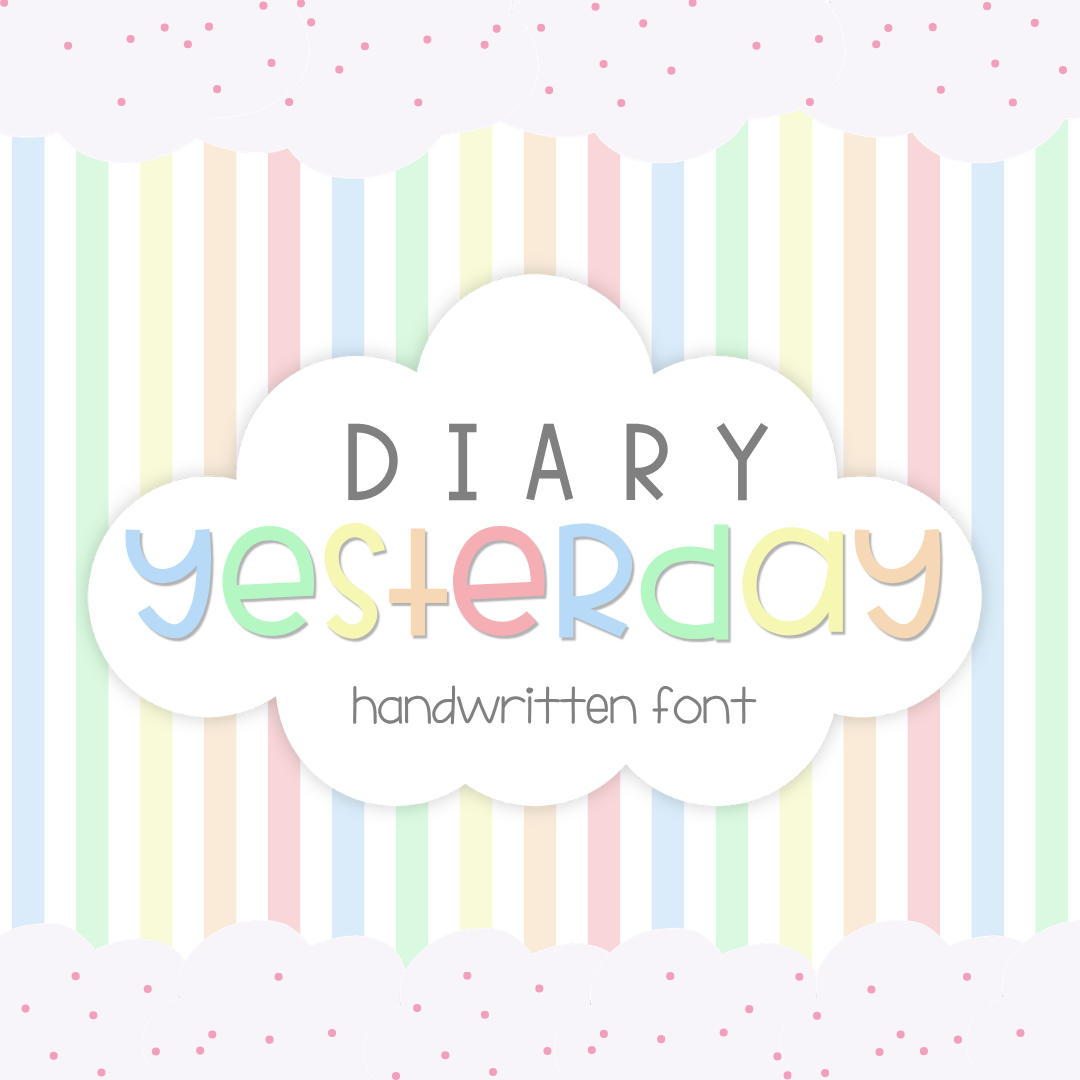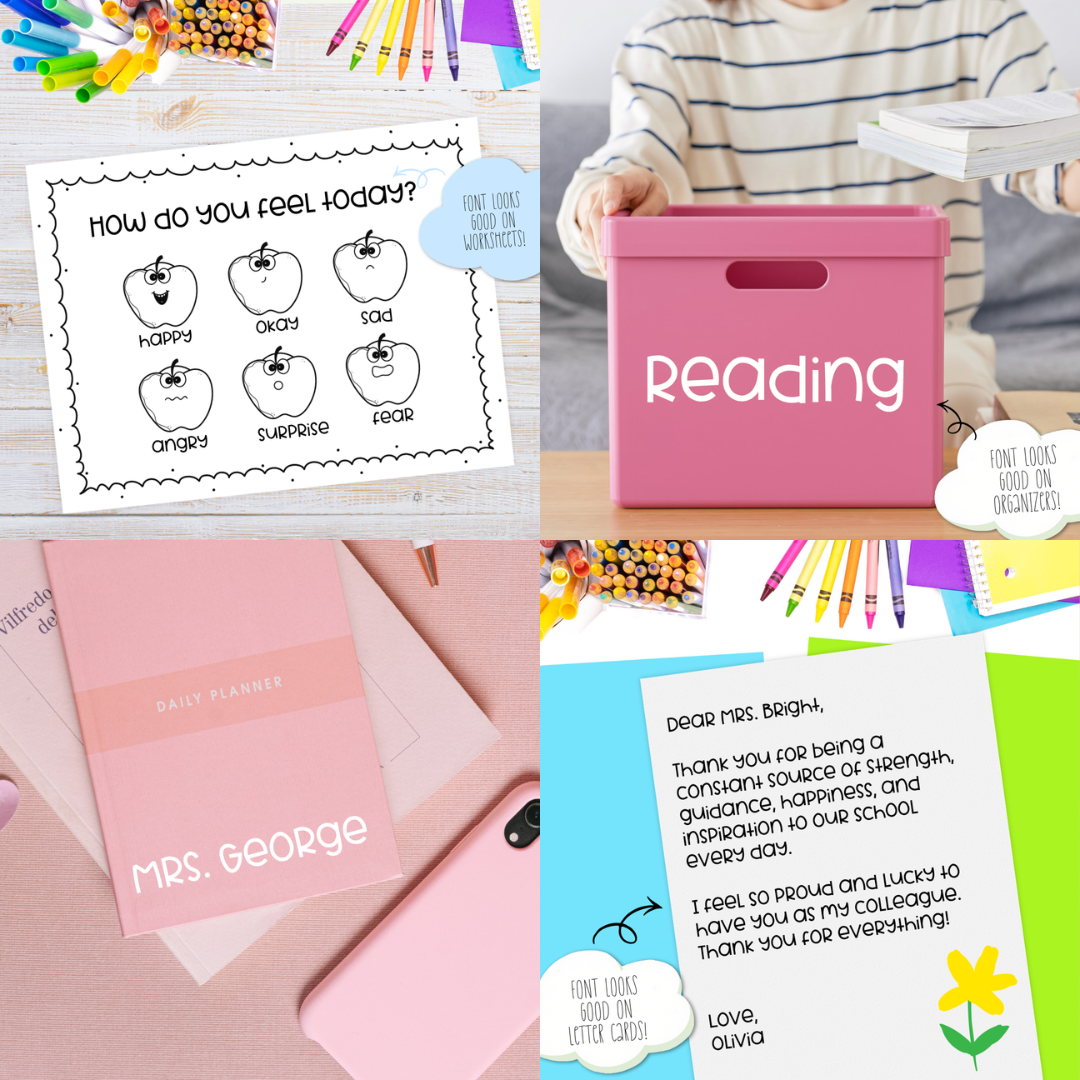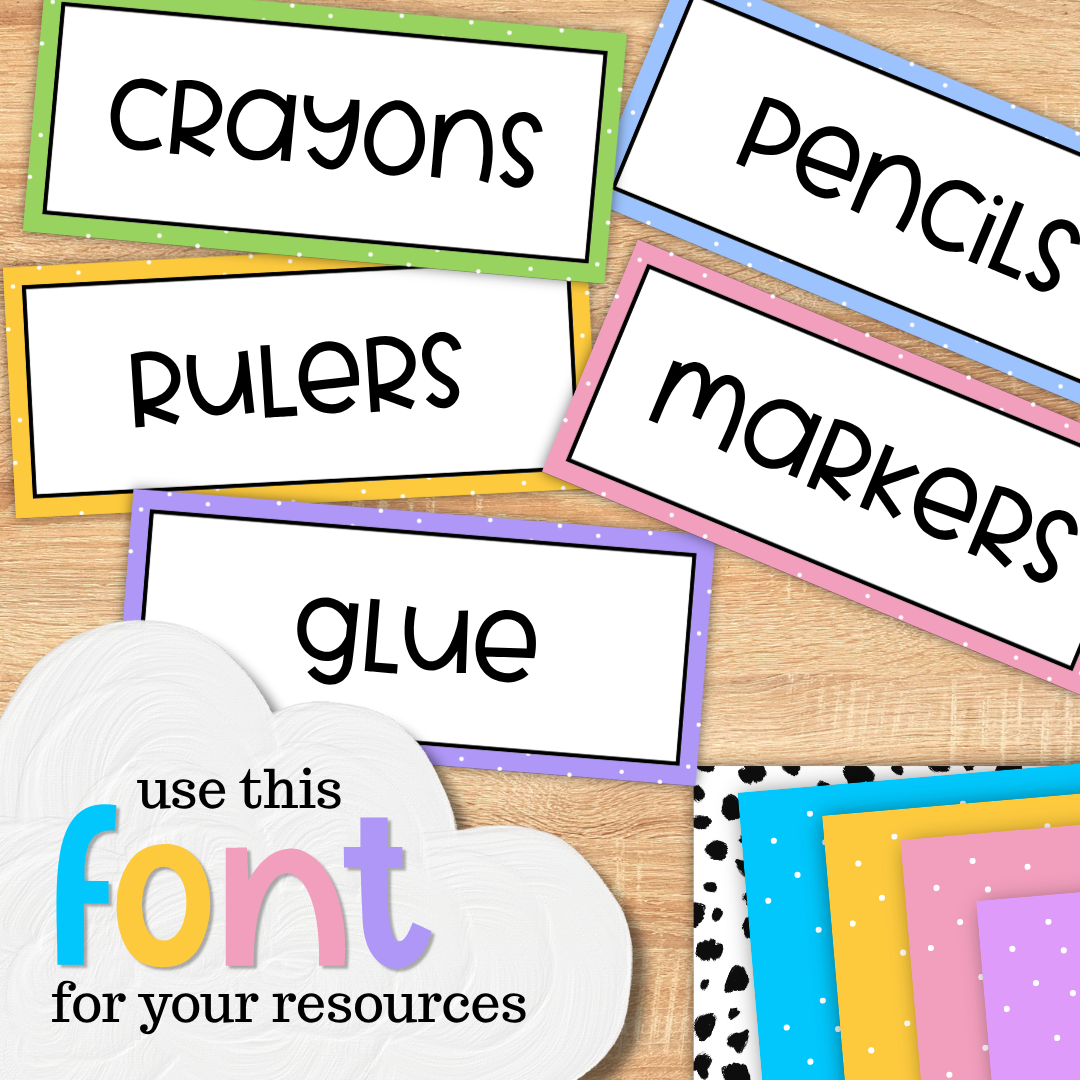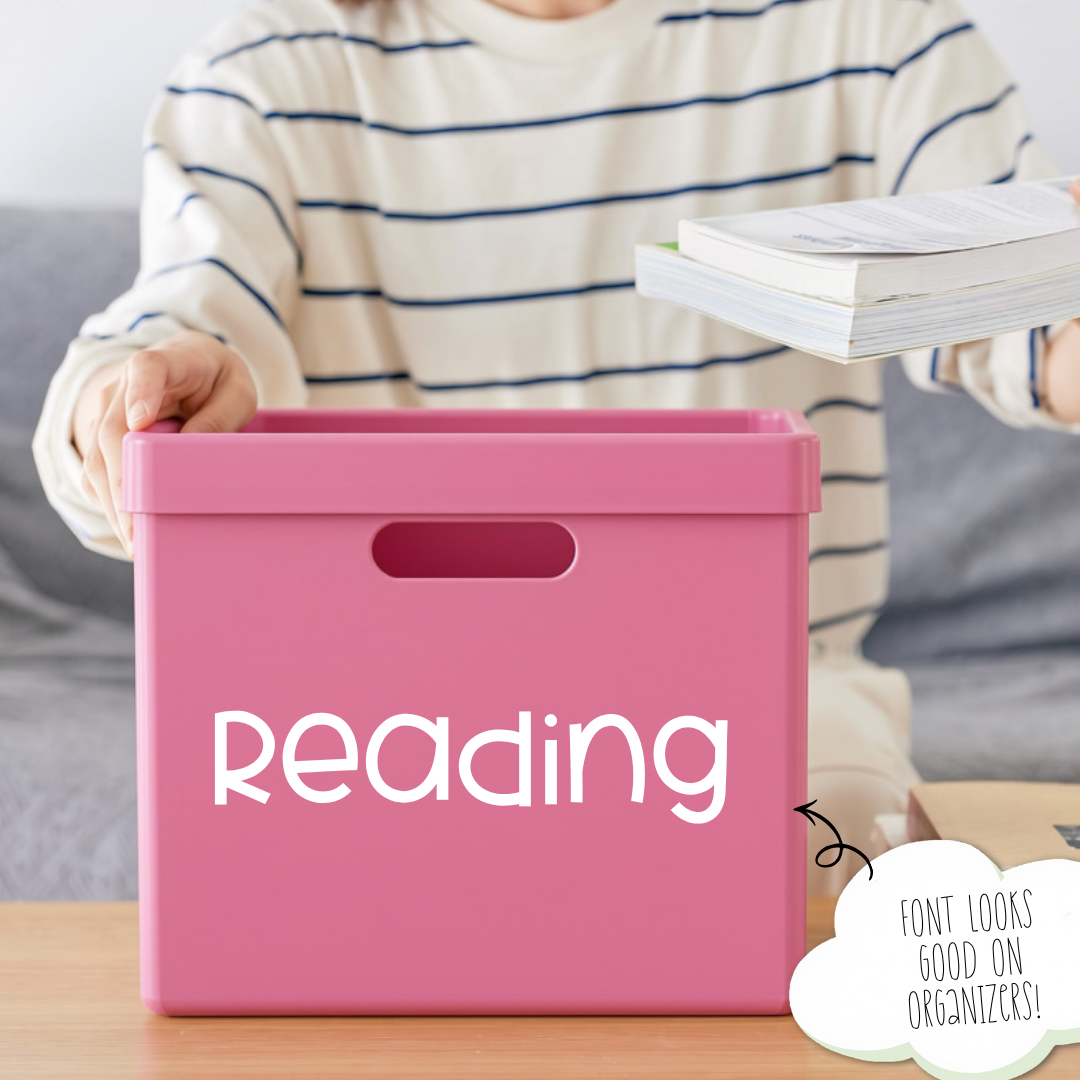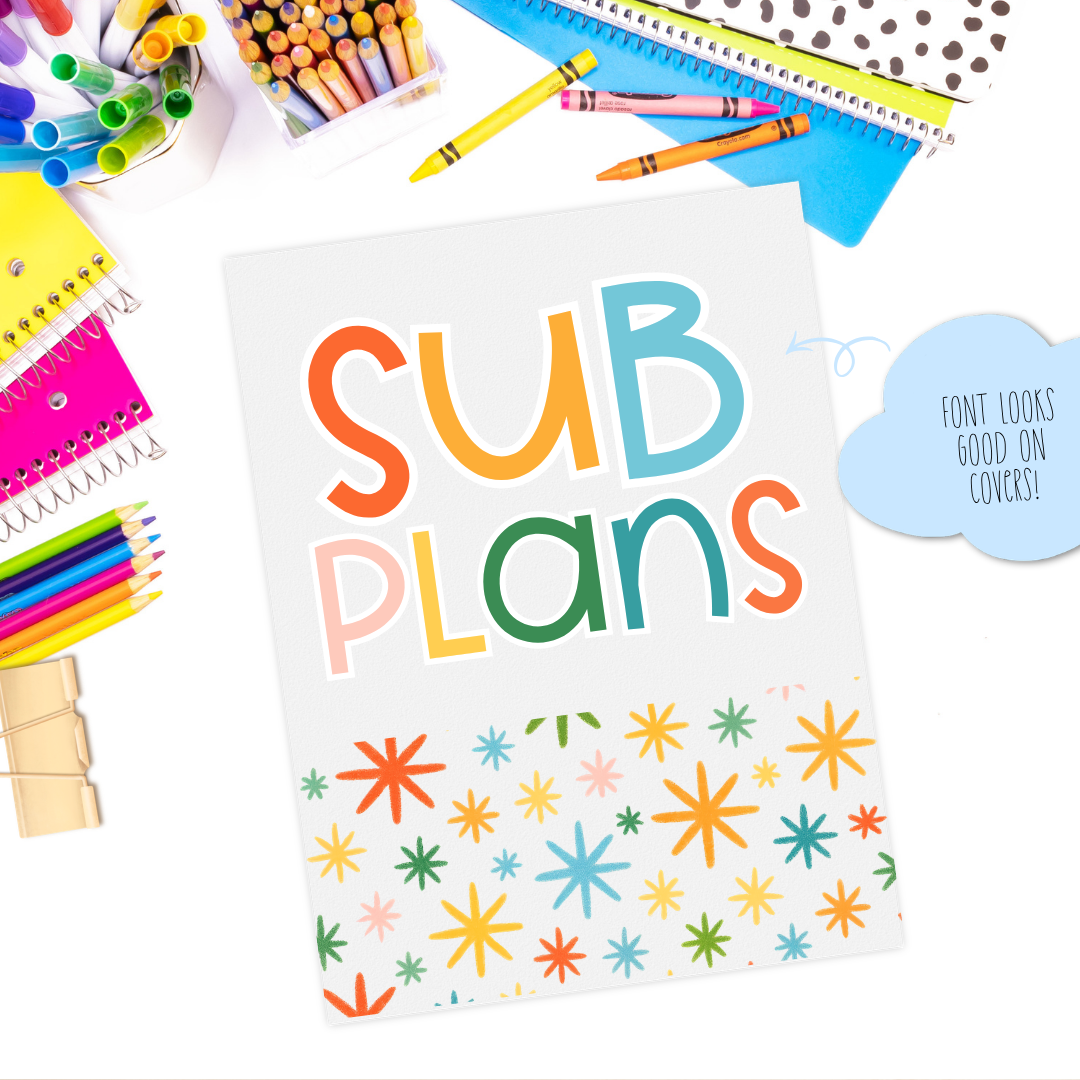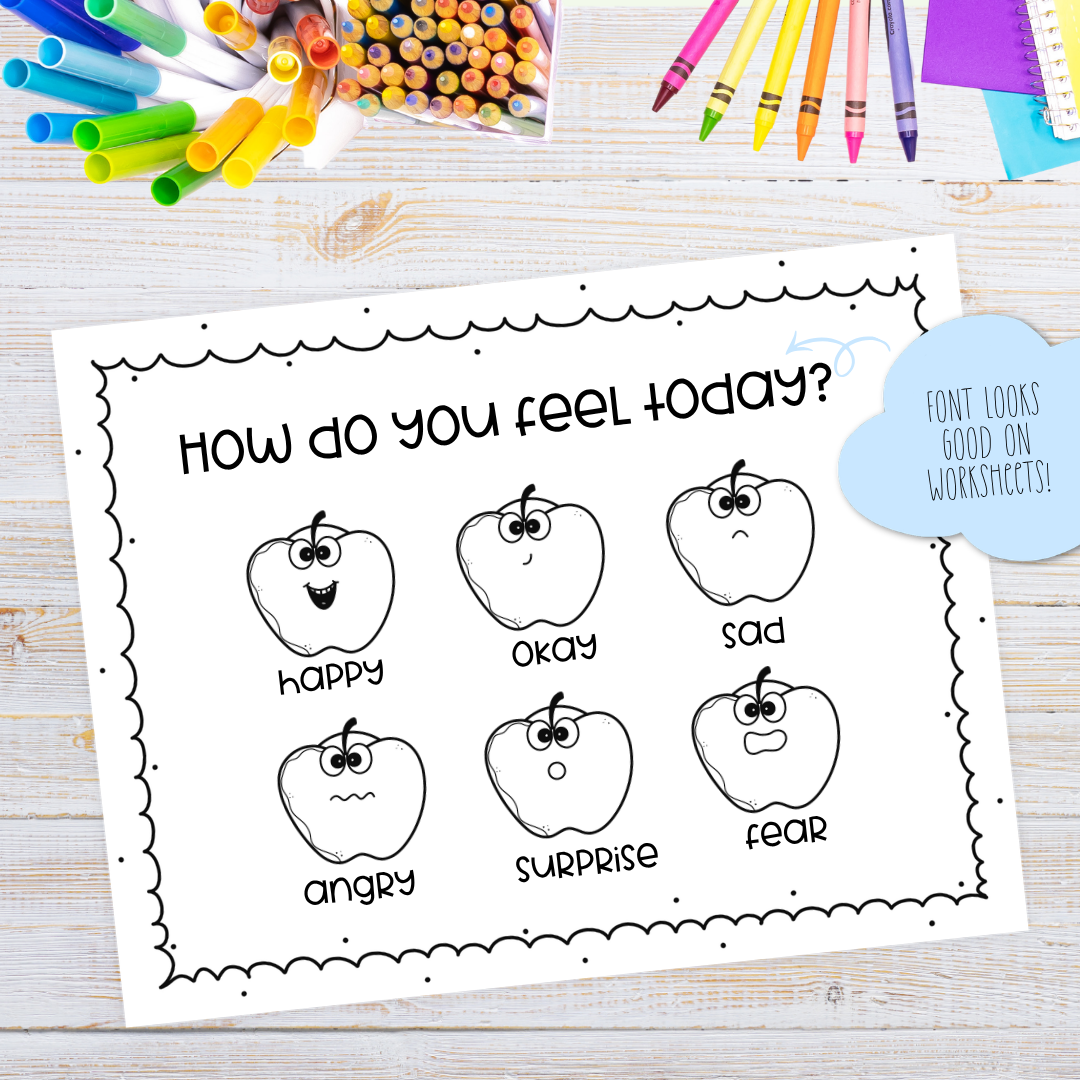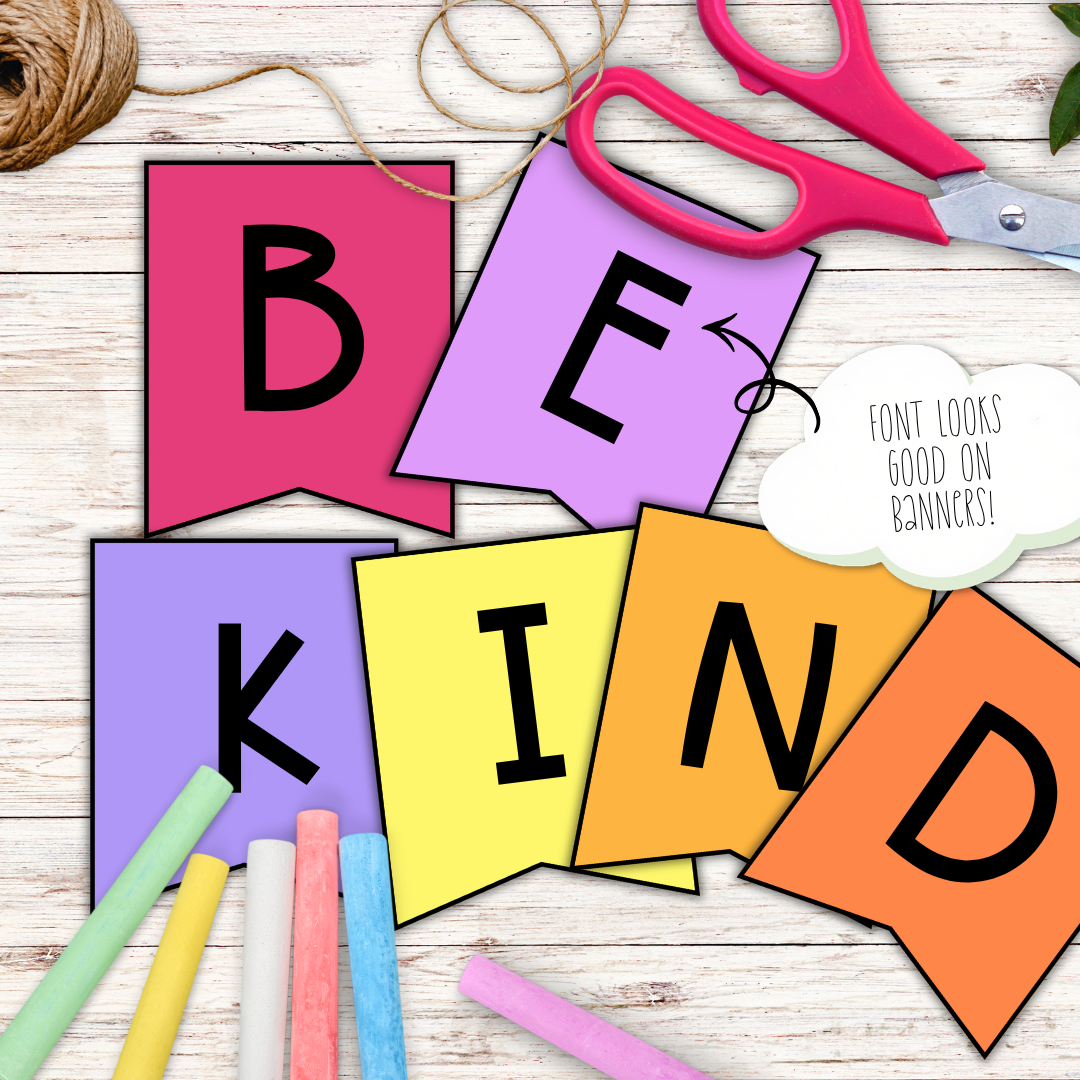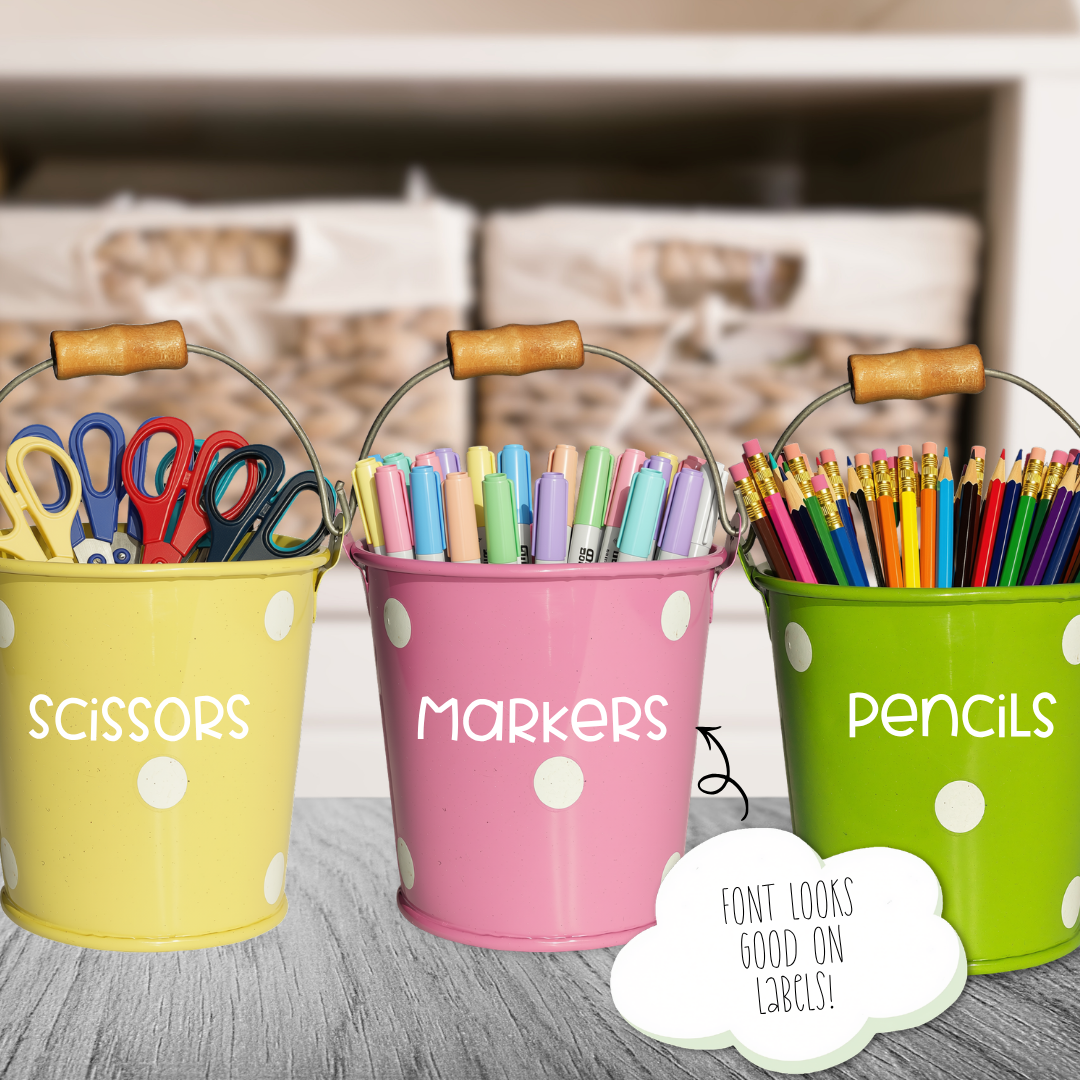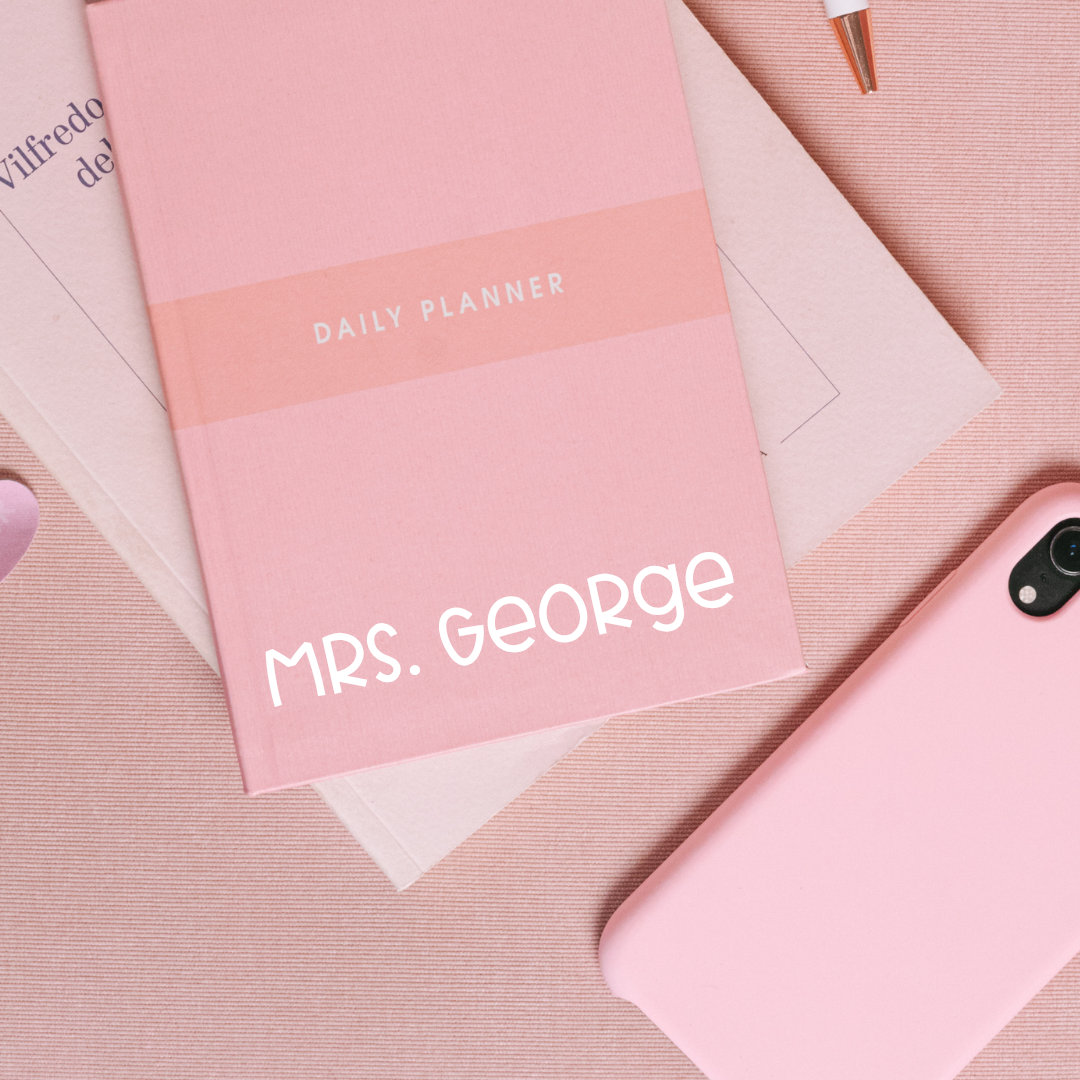
A cute, quirky handwritten font with sharp corners and edges, perfect for classroom resources, teachers, and students. It features a simple appearance with strokes of just the right thickness, not too thin and not too thick and with a little bit of cutesy fun feel. This font can be used for both personal and commercial projects.